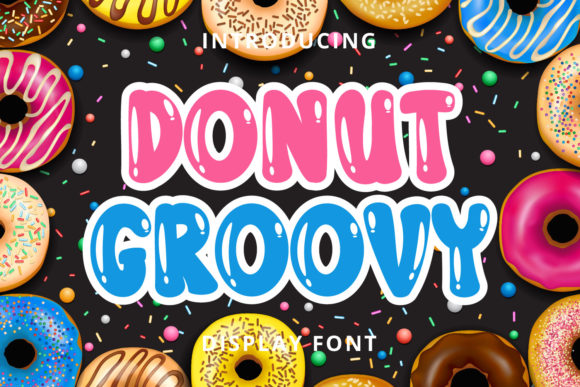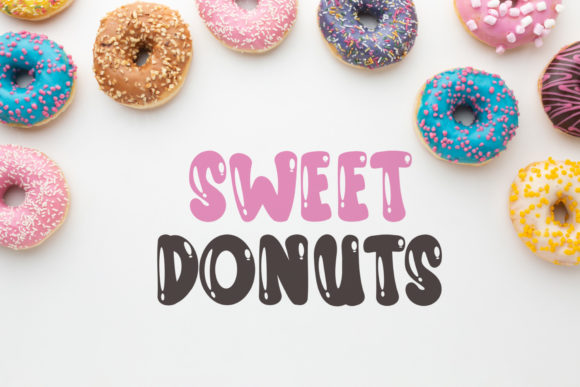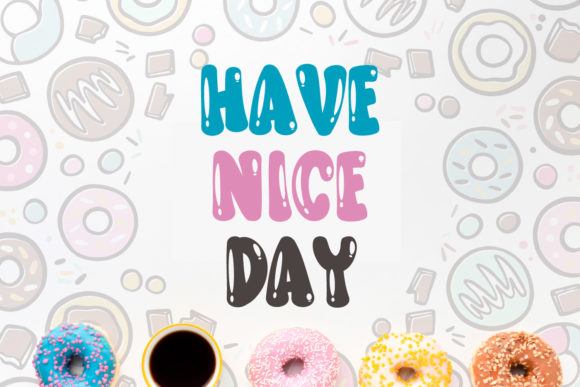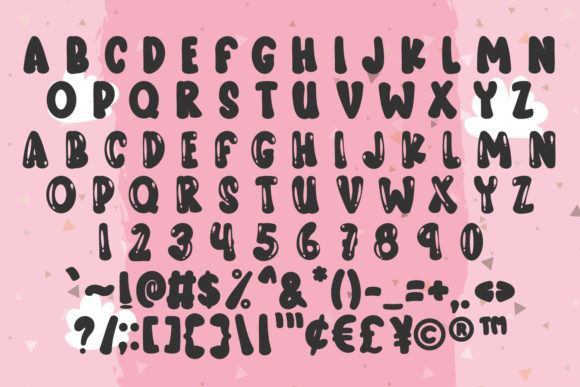
Donut Groovy Font
About the Donut Groovy Font
Crafted with precision, the Donut Groovy Font is ready to bring your ideas to life. Donut Groovy is a fun, quirky and informal display font. Add this playful font to your cartoon titles, designs or subtitles, and your creations will instantly come to life.
Donut Groovy thrives in headline applications, short slogans, and playful branding projects where a quirky, informal feel is desired. It works exceptionally well for posters, social media graphics, and packaging for products targeting a younger demographic. Avoid using it for body text or long-form content; its informal nature makes it unsuitable for readability in extended passages.
The font’s core personality is undeniably playful and bold. Its retro-inspired style lends itself to projects aiming for a fun, nostalgic vibe.
Pair Donut Groovy with a clean sans-serif like Open Sans for a balanced contrast, or a classic serif like Playfair Display for a touch of sophistication. For a more modern feel, consider pairing it with a geometric sans-serif like Montserrat.